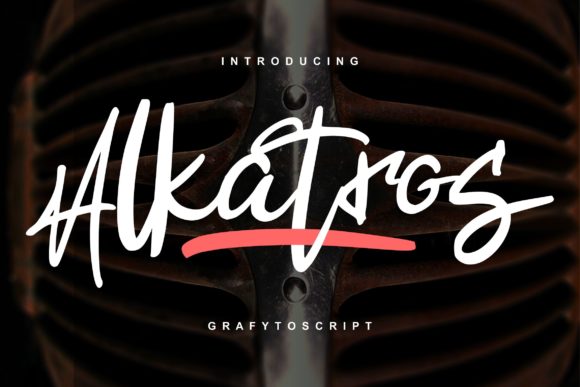
Alkatros Font: A Friendly and Modern Script Font
When it comes to typography, the right font can make all the difference in the aesthetic and tone of a design project. For those looking for a friendly and modern script font, Alkatros Font is an excellent choice. In this article, we’ll explore the authentic elements of Alkatros Font, its features, and how it can inspire your next design project.
What is Alkatros Font?
Alkatros Font is a modern script font designed to bring a touch of elegance and friendliness to any design project. Its authentic elements are inspired by traditional calligraphy, yet it has a unique and contemporary feel that sets it apart from other script fonts.
One of the standout features of Alkatros Font is its versatility. It can be used for a wide range of design projects, from branding and advertising to packaging and digital media. Whether you’re looking to create a bold statement or a subtle impression, Alkatros Font is an excellent choice.
Authentic Elements of Alkatros Font
So, what makes Alkatros Font so special? Here are some of its authentic elements that make it a standout font:
- Fluid strokes: Alkatros Font features fluid strokes that give it a natural, handwritten feel. The strokes are smooth and connected, creating a sense of movement and flow.
- Unique letterforms: Each letterform in Alkatros Font has been carefully crafted to be unique and distinctive. The font features a range of letterforms, from elegant swashes to playful connections.
- Classic and modern mix: Alkatros Font combines classic and modern elements to create a truly unique look. The font has a timeless feel, yet it’s also modern and fresh.
Uses of Alkatros Font
Alkatros Font is an incredibly versatile font that can be used for a wide range of design projects. Here are some examples of how you can use Alkatros Font:
- Branding and advertising: Alkatros Font is perfect for branding and advertising projects, such as logos, billboards, and magazine ads.
- Packaging design: The font’s elegant and modern feel makes it ideal for packaging design, including labels, tags, and product packaging.
- Digital media: Alkatros Font can be used for digital media, such as social media graphics, website headers, and email newsletters.
Tips for Using Alkatros Font
Here are some tips for using Alkatros Font effectively in your design projects:
- Experiment with font sizes: Alkatros Font looks great in a range of font sizes, from large headings to smaller body text.
- Pair it with other fonts: Alkatros Font pairs well with other fonts, such as sans-serif fonts and serif fonts. Experiment with different font combinations to find the perfect look for your project.
- Use it consistently: To get the most out of Alkatros Font, use it consistently throughout your design project. This will help to create a cohesive look and feel.
In conclusion, Alkatros Font is a friendly and modern script font that’s perfect for a wide range of design projects. Its authentic elements, such as fluid strokes and unique letterforms, make it a standout font that’s sure to inspire your next design project. With its versatility, classic and modern mix, and range of uses, Alkatros Font is an excellent choice for designers looking for a high-quality script font.